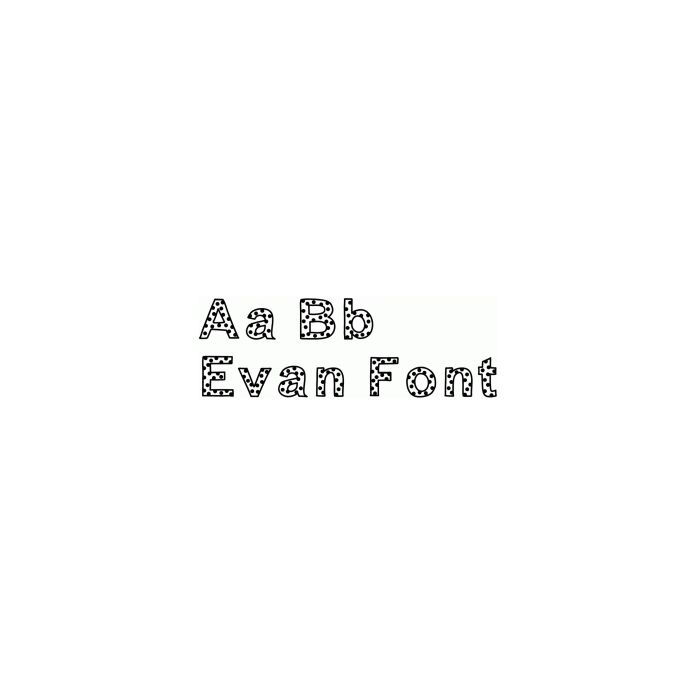
evan font
This is an outline font (where the inside of the letters are cut out to leave a hollow space). Since the outlines are thin, this font should only be used with vinyl and must be typed using a large font size.